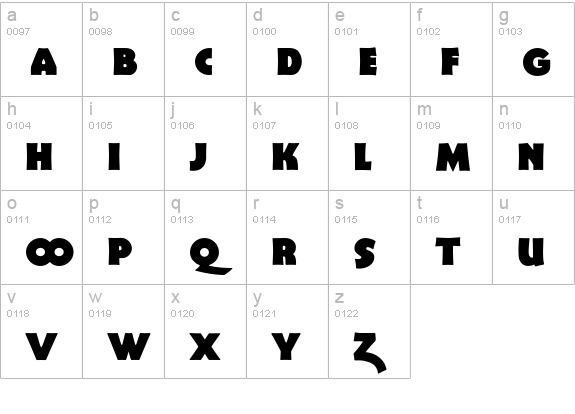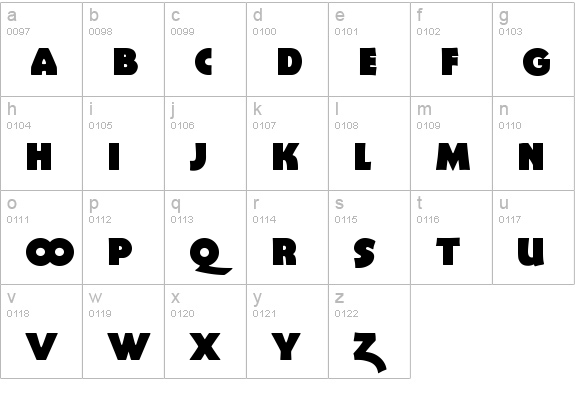
Berlinsans-BoldExpert is a modern and sleek font that exudes confidence and professionalism. With its bold and expertly crafted design, this typeface is perfect for making a bold statement in any project. The strong and robust letterforms of Berlinsans-BoldExpert make it ideal for headlines, titles, and branding materials. Its clean lines and sharp angles give it a contemporary and sophisticated look that is sure to catch the eye. The best part? Berlinsans-BoldExpert is available for free download at FontsMarket.com. This means you can easily access this high-quality font and use it in your projects without any cost. Whether you're designing a website, creating marketing materials, or working on a presentation, Berlinsans-BoldExpert will elevate your work with its striking appearance and professional appeal. Download Berlinsans-BoldExpert today and take your designs to the next level!